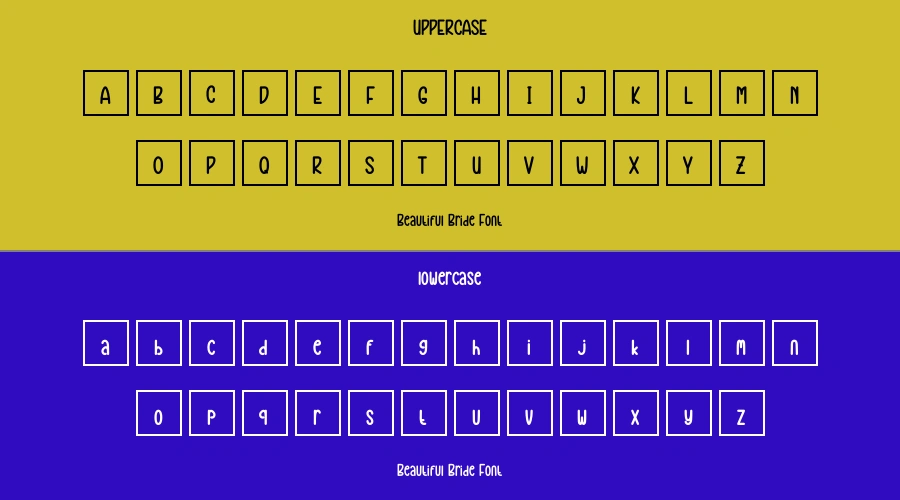
About Beautiful Bride Font
Designed with precision, Beautiful Bride Font merges systematic design with gray value in every character. This versatility makes it particularly effective for packaging hero, where adaptability and professional standards directly impact communication quality. Each letterform demonstrates meticulous craftsmanship.
Technical excellence shines through elements like ball terminals and lining figures, enhancing typographic versatility. In regulatory documents settings, Beautiful Bride Font proves its worth through superior small cap rendering. The thoughtful execution of counter shape and technical innovation ensures professional results.